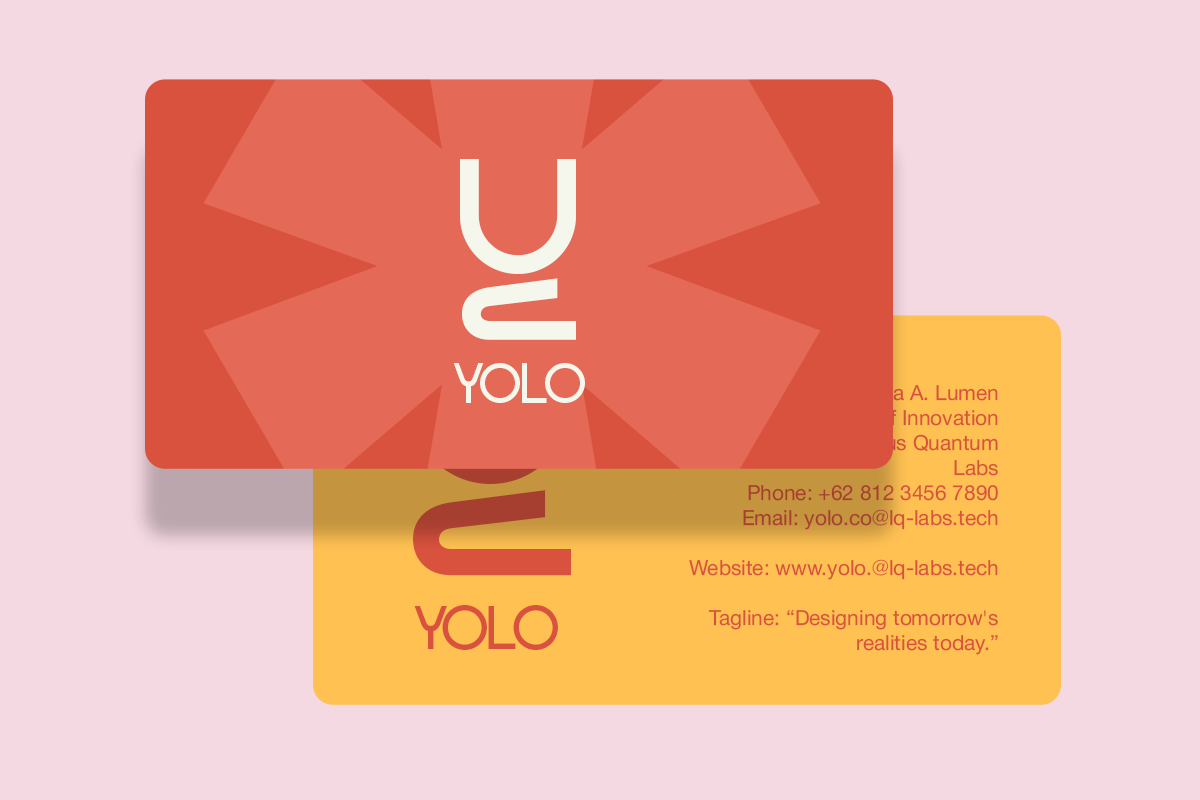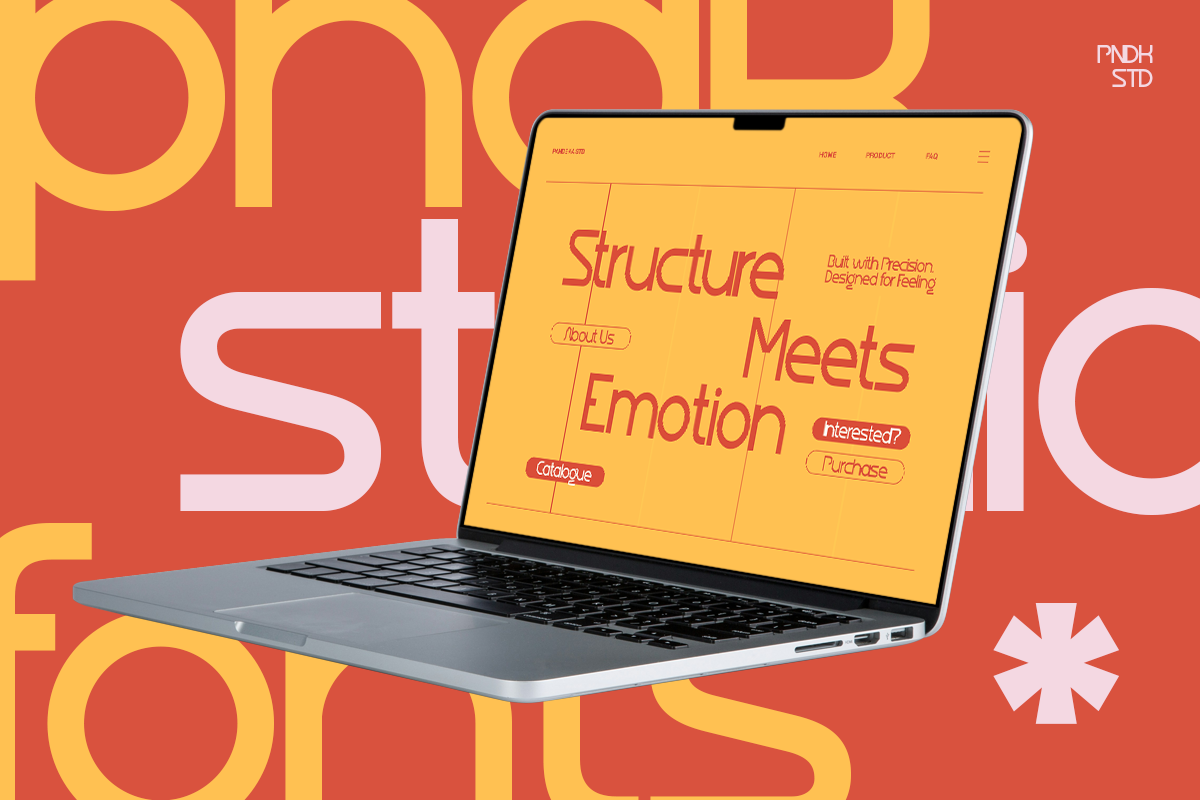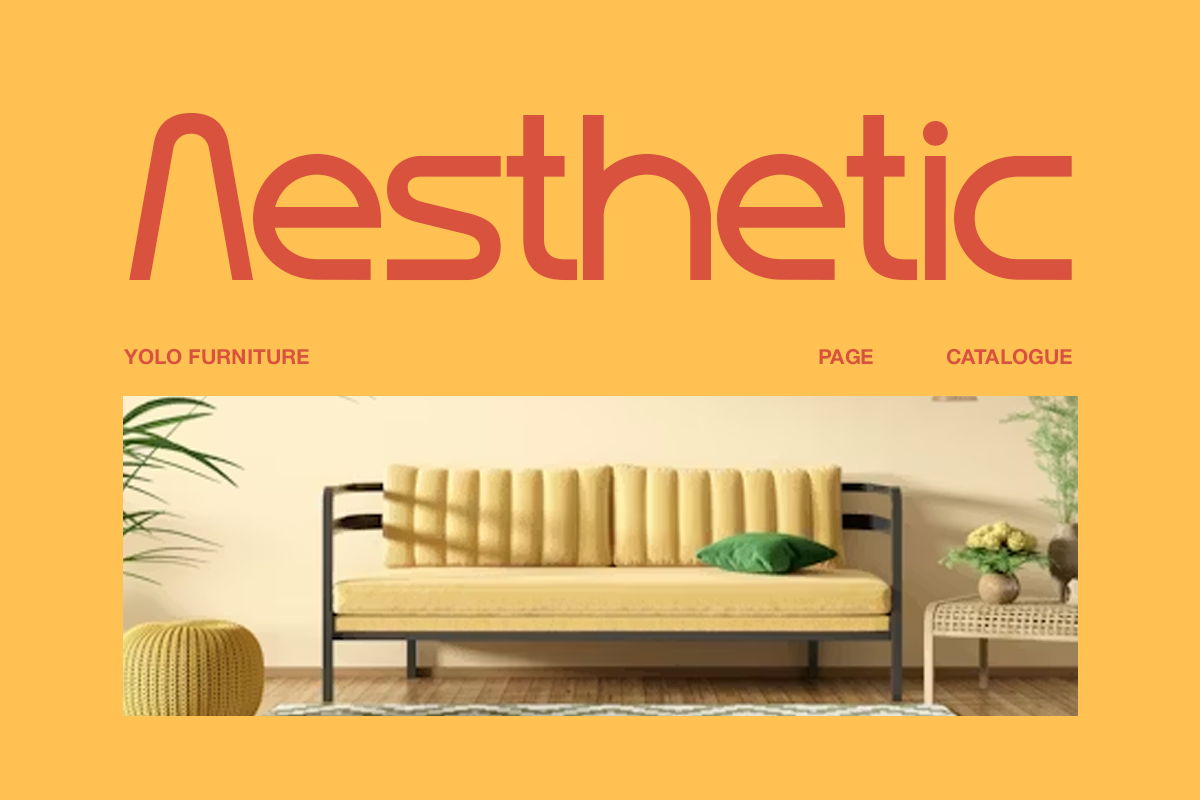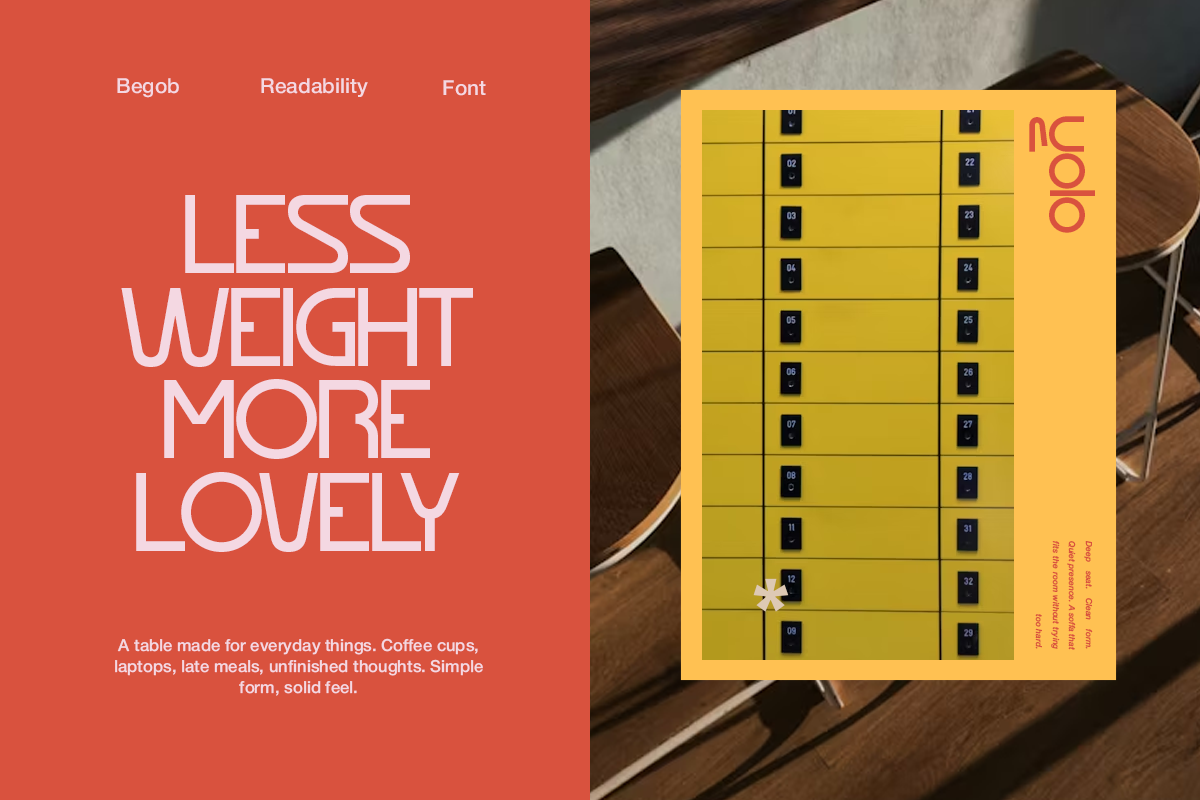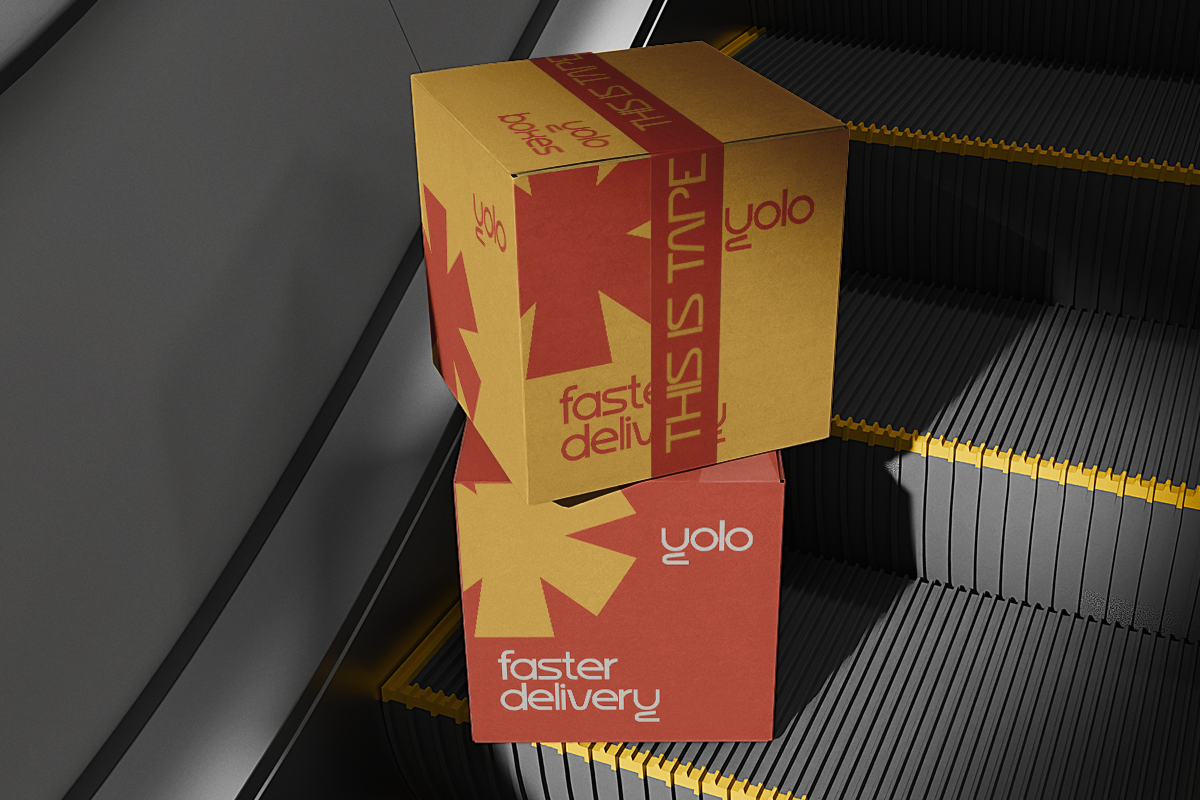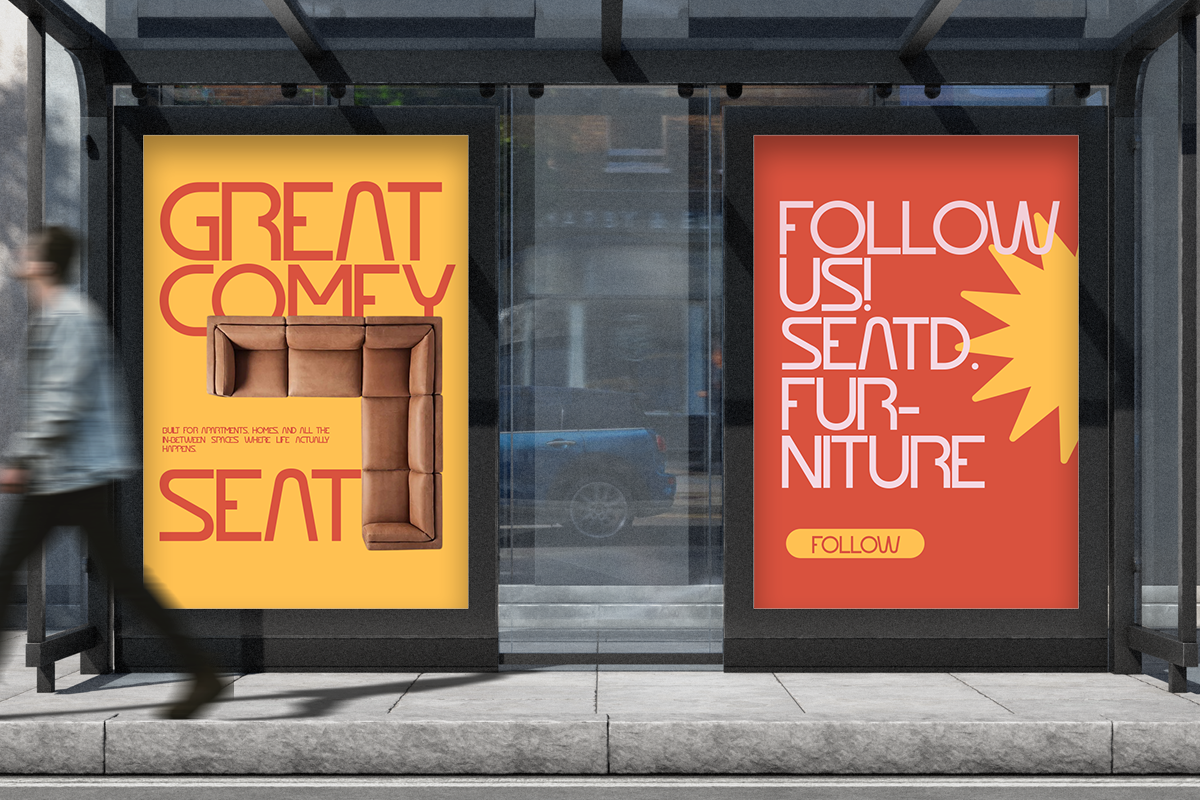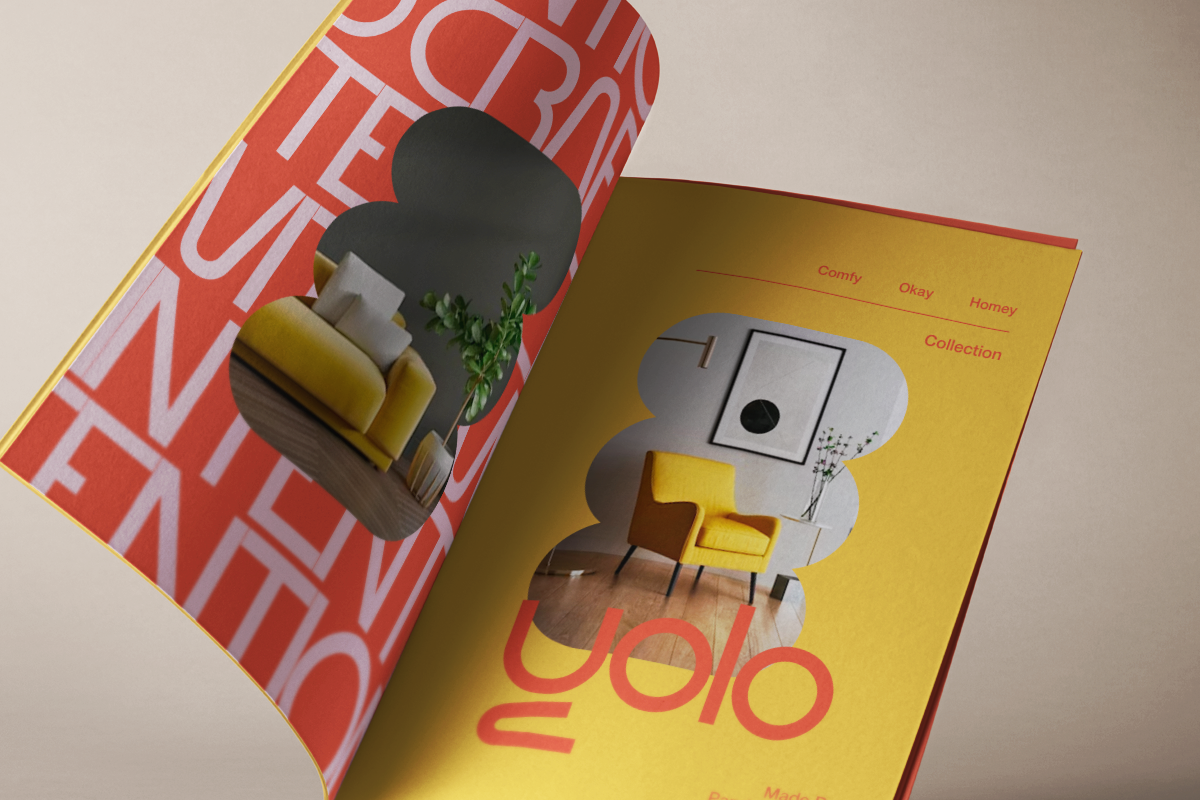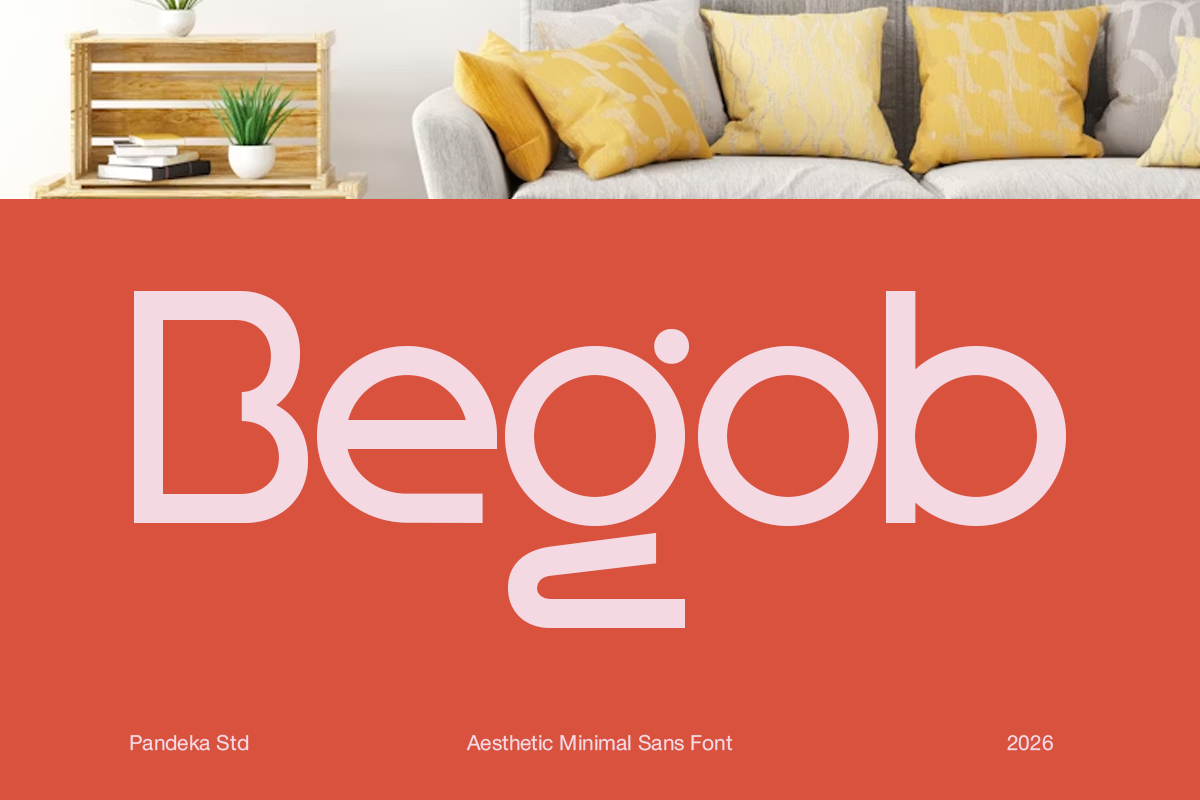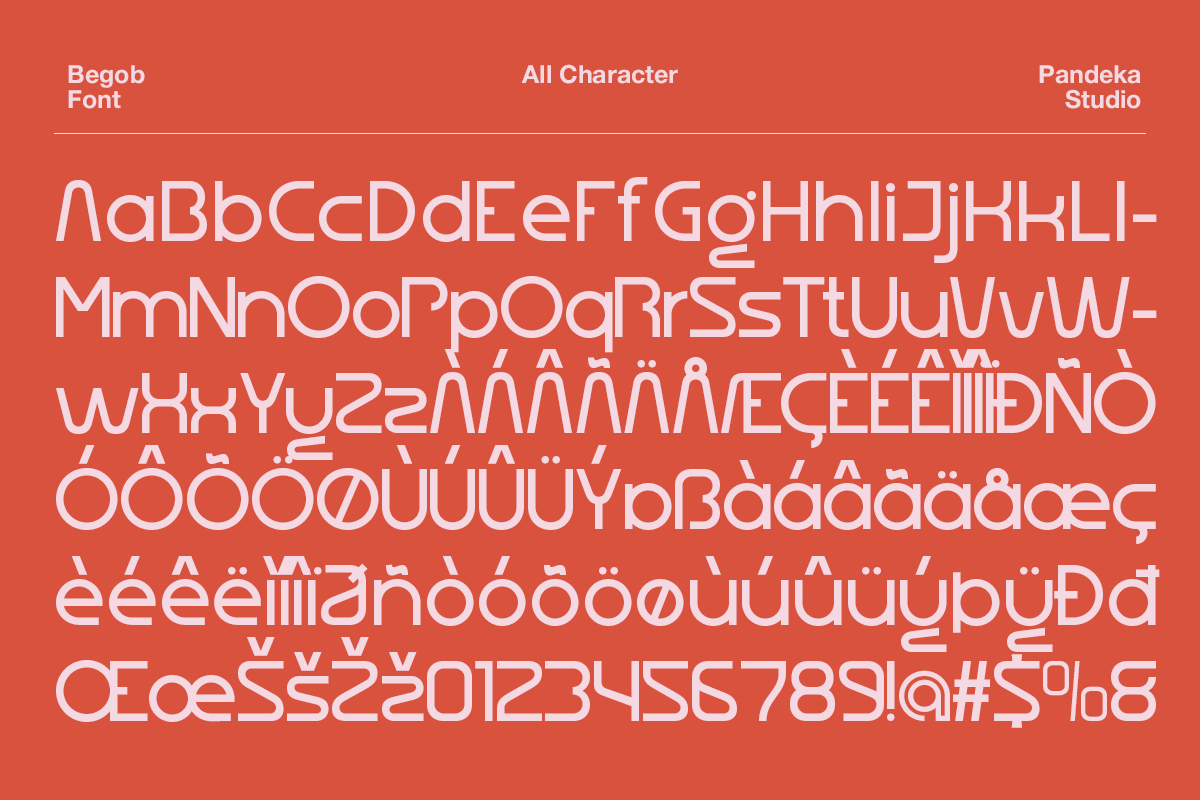
Begob - Minimal Sans Font
Begob is a modern minimal sans font designed with clean geometric shapes, smooth curves, and a stylish contemporary aesthetic. Its unique letterforms create a bold yet friendly appearance, making it perfect for modern branding, furniture catalogues, editorial layouts, posters, websites, packaging, and creative visual identities. With its clean structure and balanced proportions, Begob delivers a minimalist look that feels modern, fresh, and highly readable.
Designed in a single Regular style, Begob focuses on simplicity, readability, and strong visual character. The distinctive details and geometric construction make this typeface ideal for furniture branding, modern posters, website headers, catalogue designs, lifestyle branding, social media graphics, packaging, and contemporary creative projects.